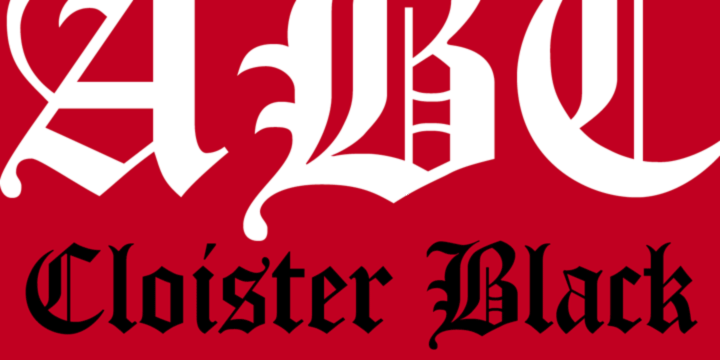
The Cloister Black CT Font is exceptionally suited for numerous traditional and ceremonial applications including medieval-themed designs, gothic architecture presentations, historic manuscript reproductions, religious ceremony programs, traditional wedding invitations, heritage brand communications, museum exhibition materials, academic publications, antique shop signage, and classical music event promotions. Its authentic character makes it particularly effective for religious institutions, historical organizations, traditional publishers, and heritage brands seeking to convey ancient wisdom, ecclesiastical authority, and timeless tradition in their visual communications and ceremonial presentations.
What makes the Cloister Black CT Font extraordinarily exciting is its faithful preservation of medieval blackletter tradition combined with contemporary digital precision. This distinguished typeface captures the essence of ancient monastic manuscripts and Gothic calligraphy while incorporating modern typographic refinements that ensure optimal performance across today's diverse publishing landscape. The font's captivating character emerges from its traditional Gothic letterforms, ecclesiastical proportions, and carefully crafted details that evoke a sense of religious reverence and historical continuity, making it perfect for institutions seeking to establish authenticity and appeal to tradition-conscious audiences.
The Cloister Black CT Font family offers a comprehensive collection of weights and styles designed to accommodate various traditional branding requirements. The collection typically includes regular, medium, bold, and decorative variants, with many versions featuring ornamental capitals and traditional flourishes that enhance the font's medieval appeal and ceremonial character. Some editions may include historical alternates, religious symbols, and period-appropriate ornaments that provide additional design options for creating authentic manuscript-style layouts and heritage brand applications.
Traditional designers and heritage publishing professionals consistently select the Cloister Black CT Font Free Download for its exceptional authenticity and ceremonial impact. The font features meticulously crafted spacing and kerning specifically optimized for traditional reading patterns and ceremonial display applications, ensuring respectful presentation of religious and historical texts. Its robust construction maintains clarity and tradition across various sizes and applications, while the comprehensive character set includes uppercase and lowercase letters, numerals, punctuation marks, and special symbols for professional traditional and religious communications.
The Cloister Black CT Font represents the pinnacle of Gothic typography preservation, combining centuries-old design principles with contemporary functionality. Its ecclesiastical aesthetic provides the reverence needed for religious communications while maintaining the authenticity required for serious historical applications. The font's remarkable heritage allows it to work effectively in both traditional ceremonial contexts and modern heritage branding, ensuring consistent respect across religious publications, historical documents, ceremonial materials, and traditional cultural presentations.
Honor ancient tradition and ecclesiastical heritage with the authentic beauty and reverent sophistication of the Cloister Black CT Font, the ultimate choice for Gothic typography excellence.